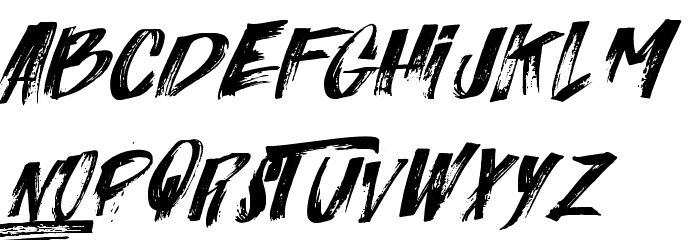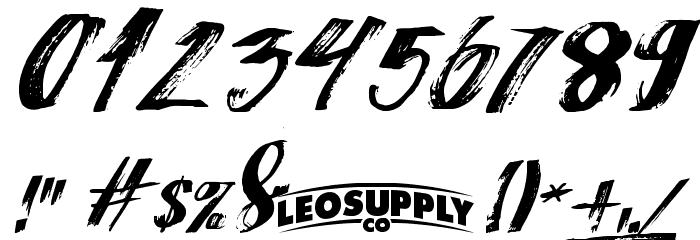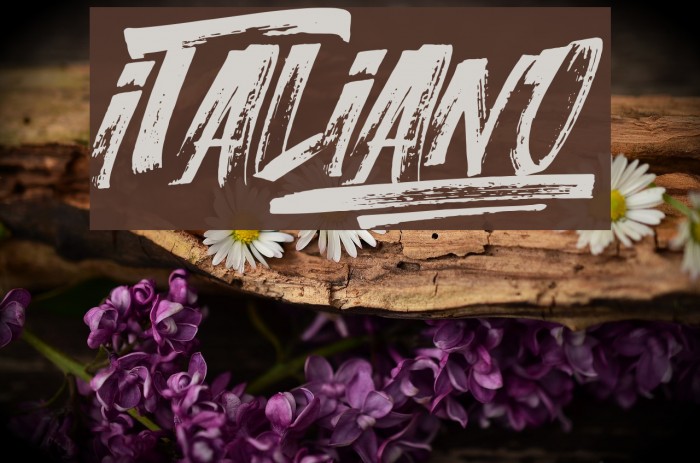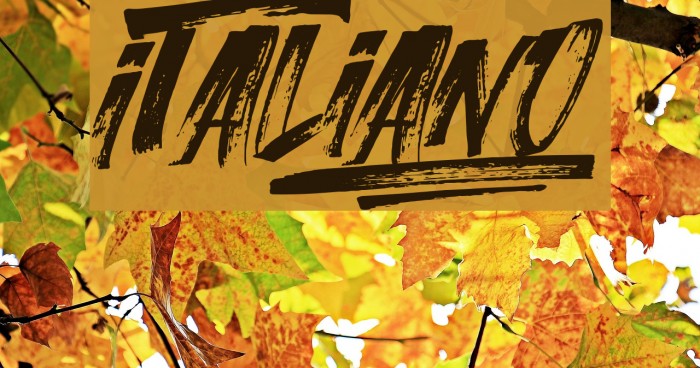
Italiano Font
This font features a bold and dynamic brush style, characterized by its energetic strokes and rough texture. The letters exhibit a sense of movement and spontaneity, with uneven edges and a hand-painted appearance. The uppercase and lowercase letters maintain a consistent style, while the numbers and special characters complement the overall aesthetic. This font is ideal for projects that require a bold and artistic touch, offering a sense of creativity and expressiveness.
A bold, brush-style font with dynamic and rough textures.
- Proposed Projects: Ideal for posters, album covers, branding, and any design needing a bold, artistic flair.
- Overall Style: Modern, Artistic